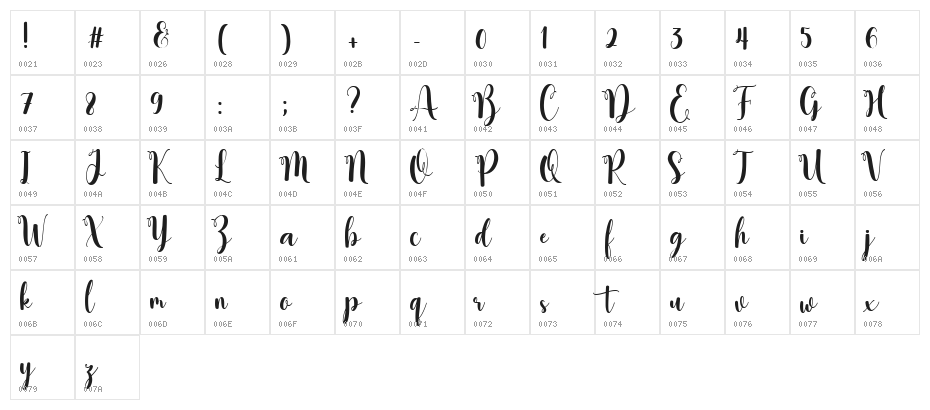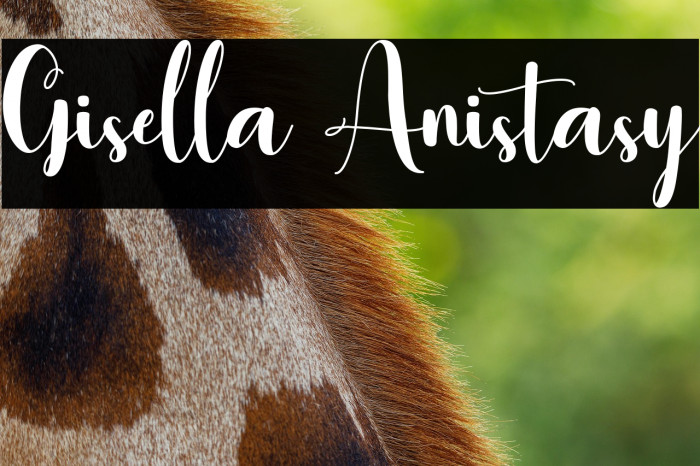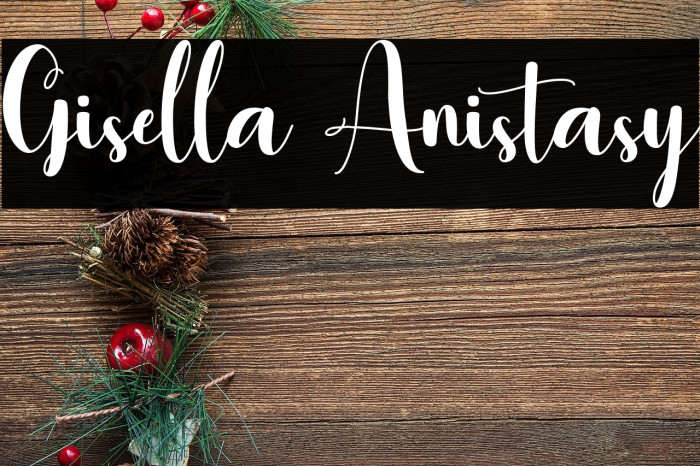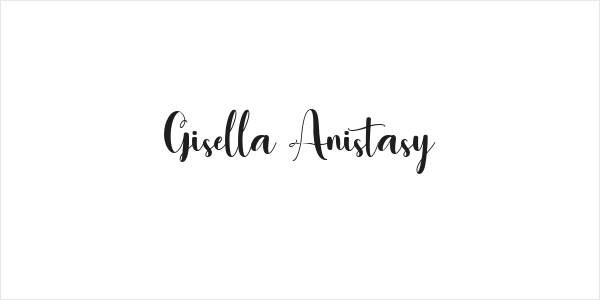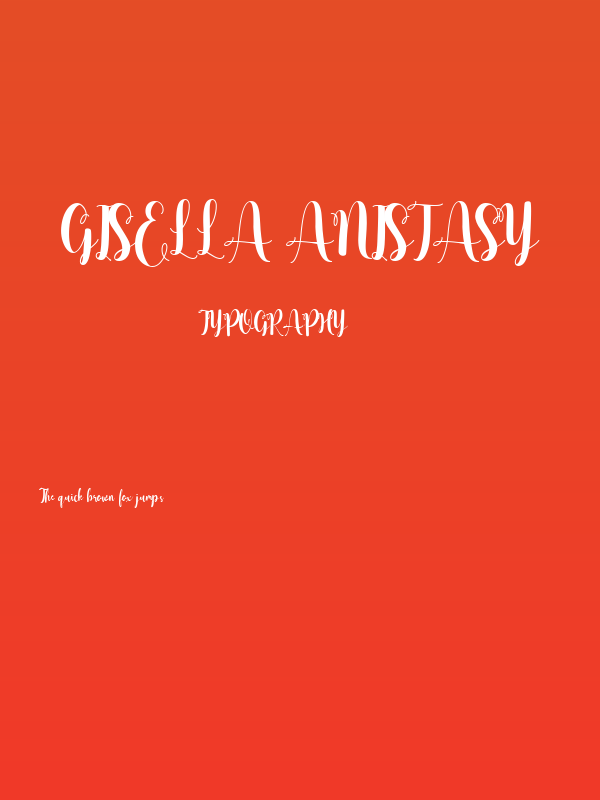
Gisella Anistasy Font
Gisella Anistasy Description
This font features an elegant and flowing script style, characterized by its ornate and decorative letterforms. The uppercase letters exhibit a graceful, looping design with a sense of movement and flair, while the lowercase letters maintain a cohesive and fluid appearance. The numerals and special characters are crafted with the same attention to detail, ensuring a harmonious look across all elements. The font's overall aesthetic is both sophisticated and playful, making it suitable for a variety of creative applications.